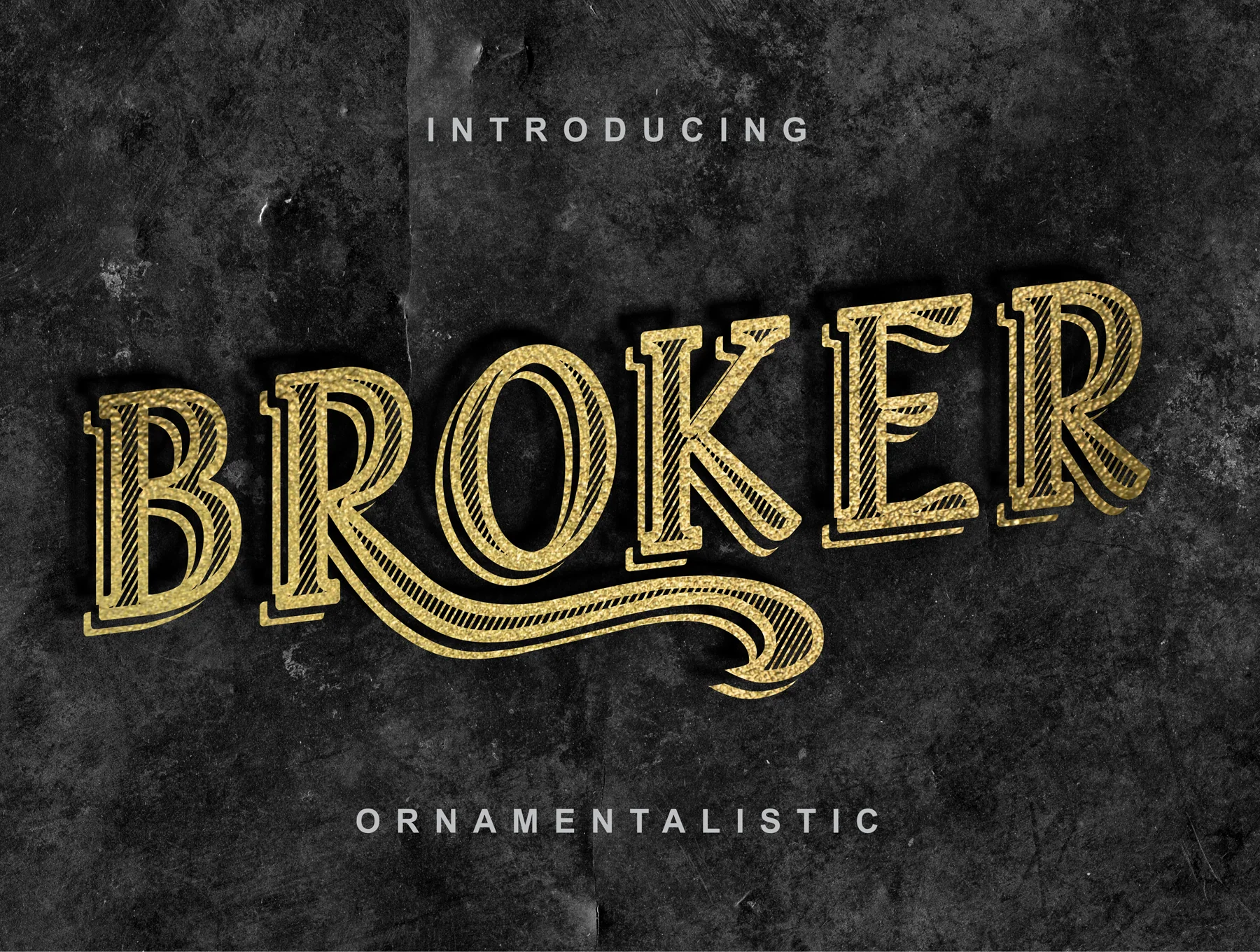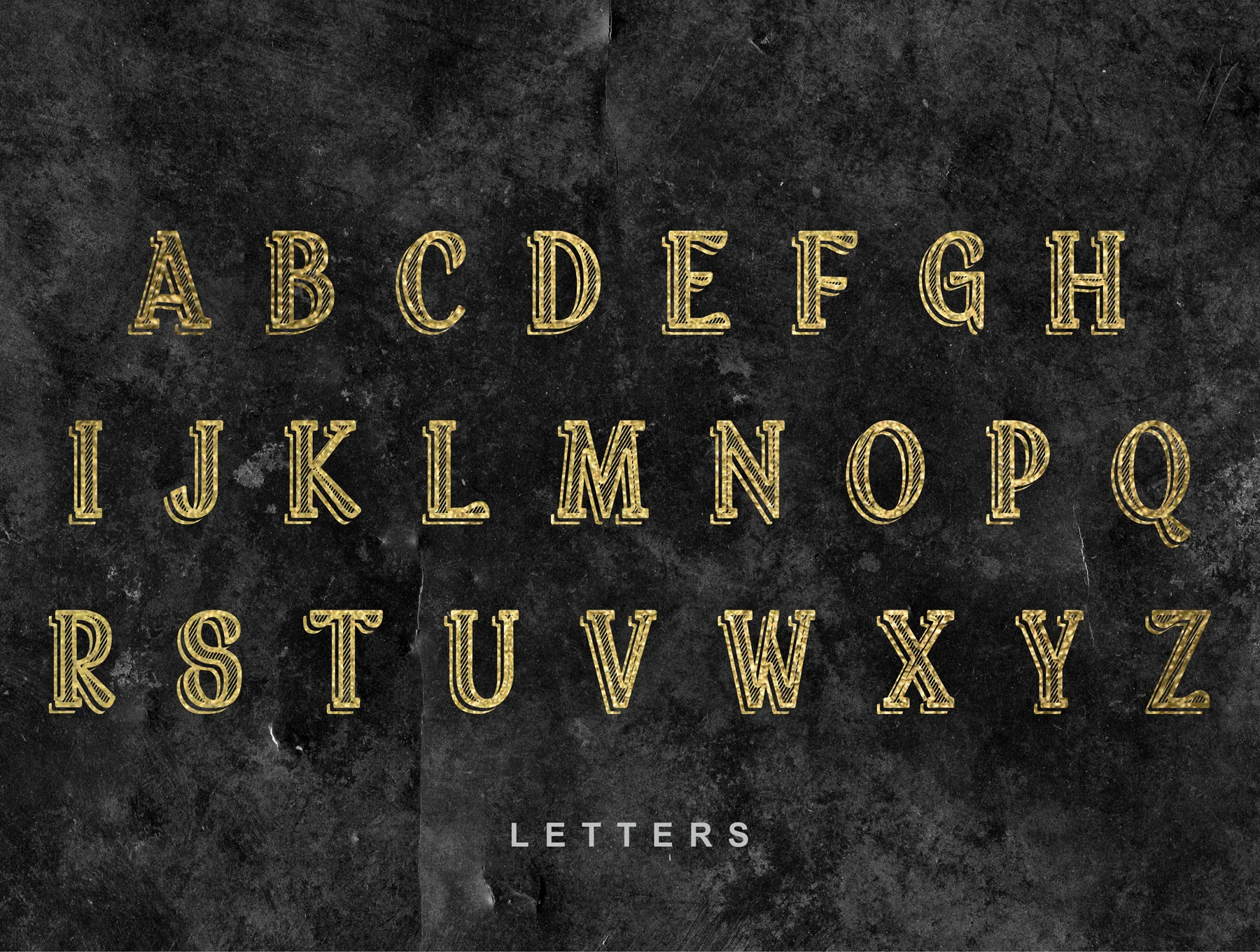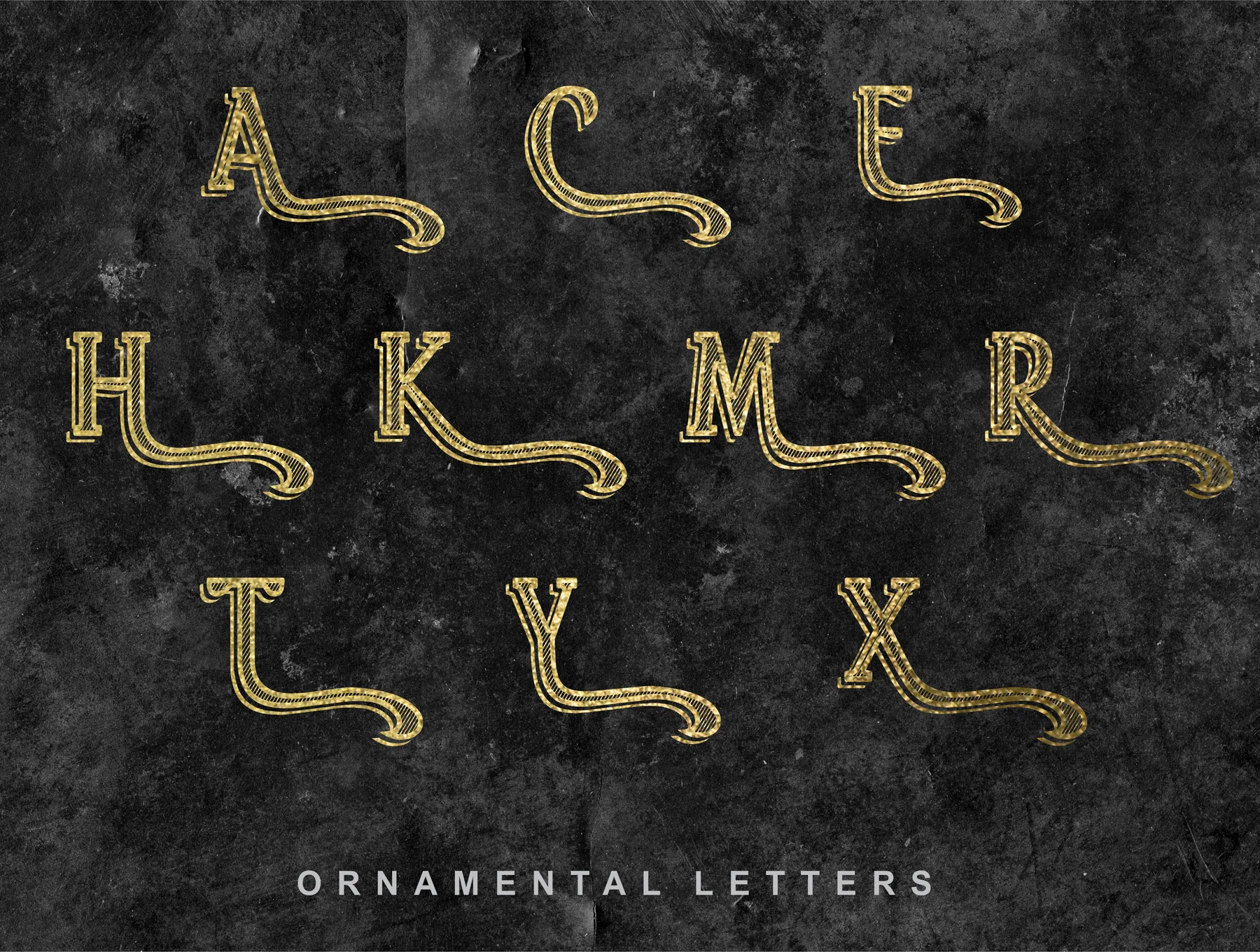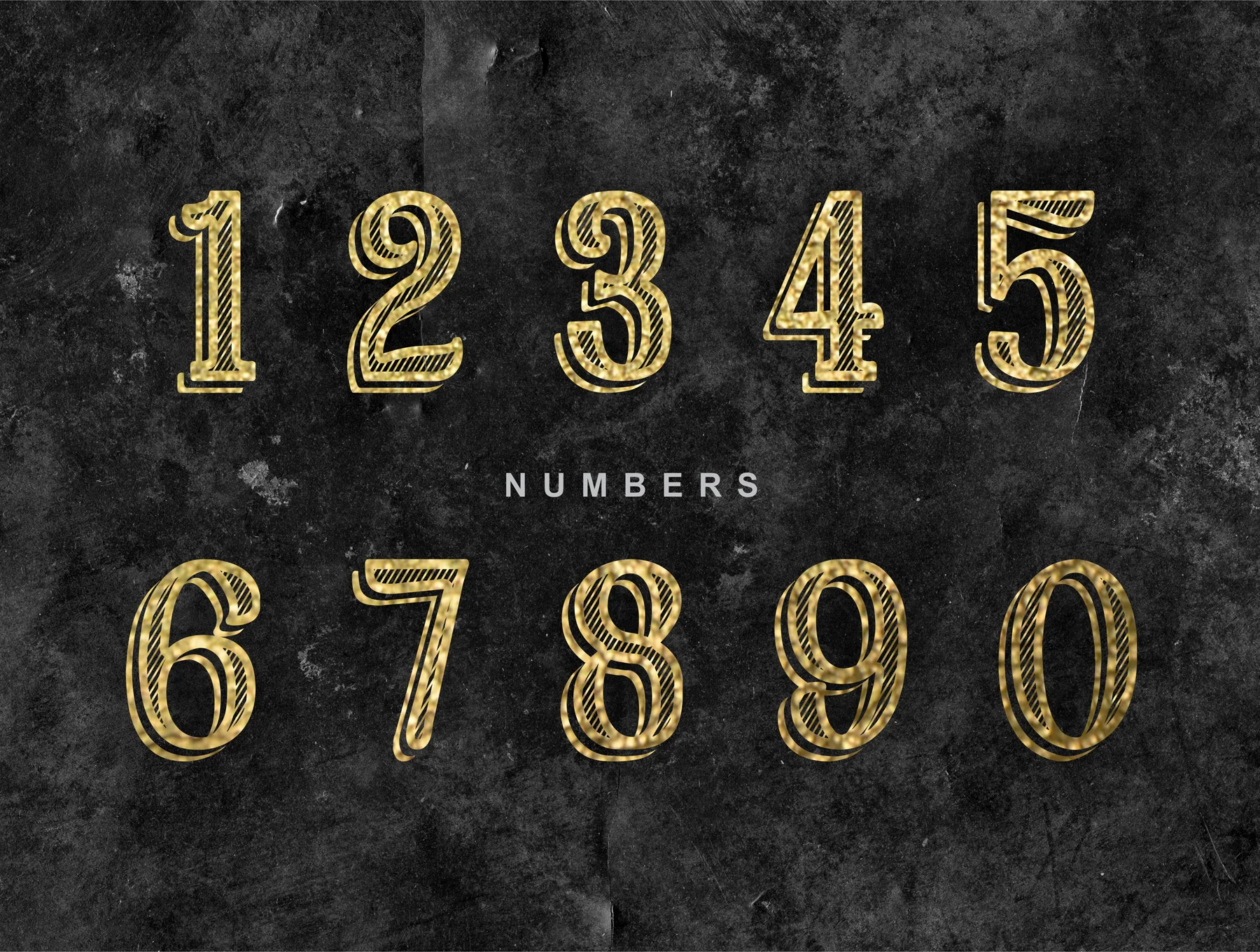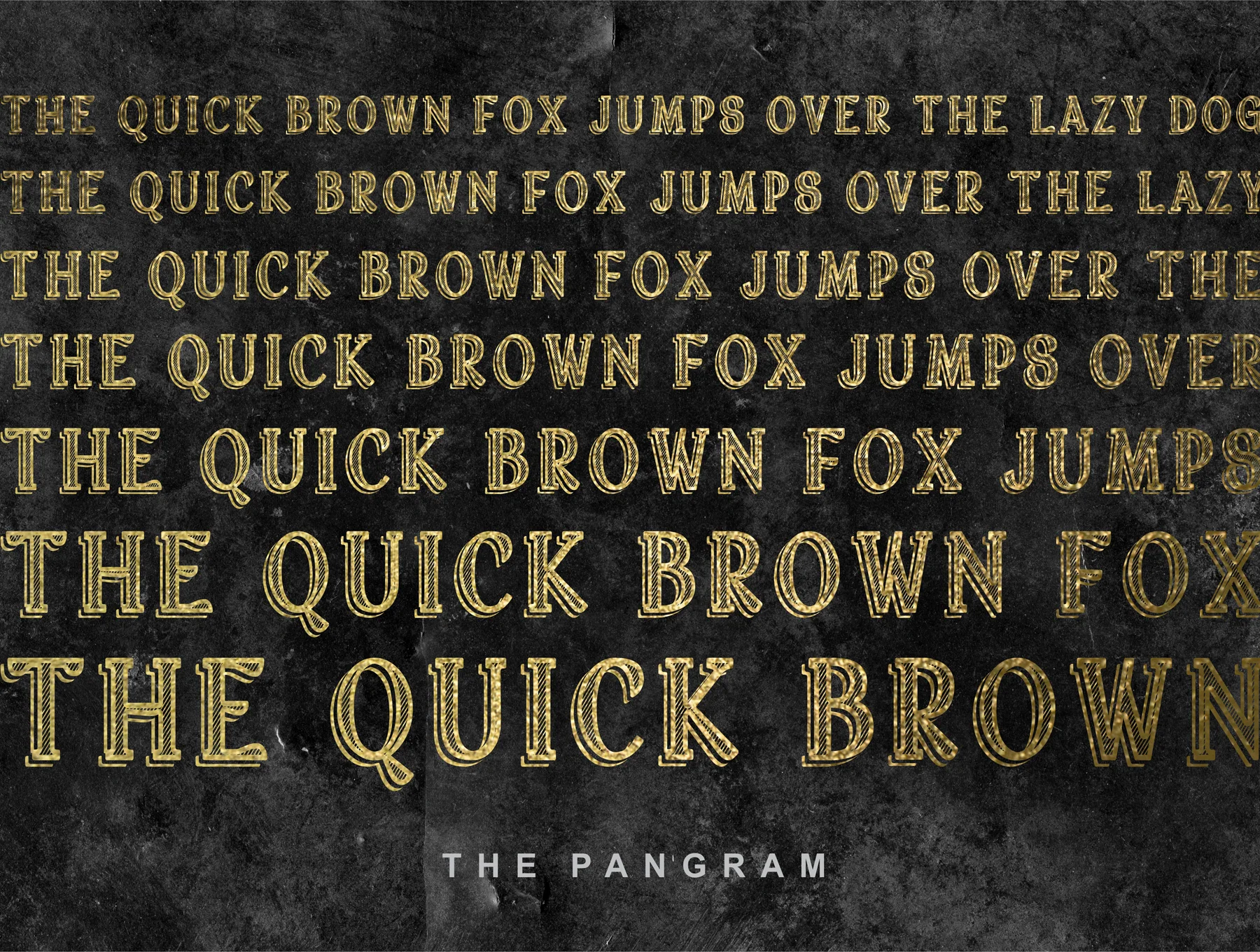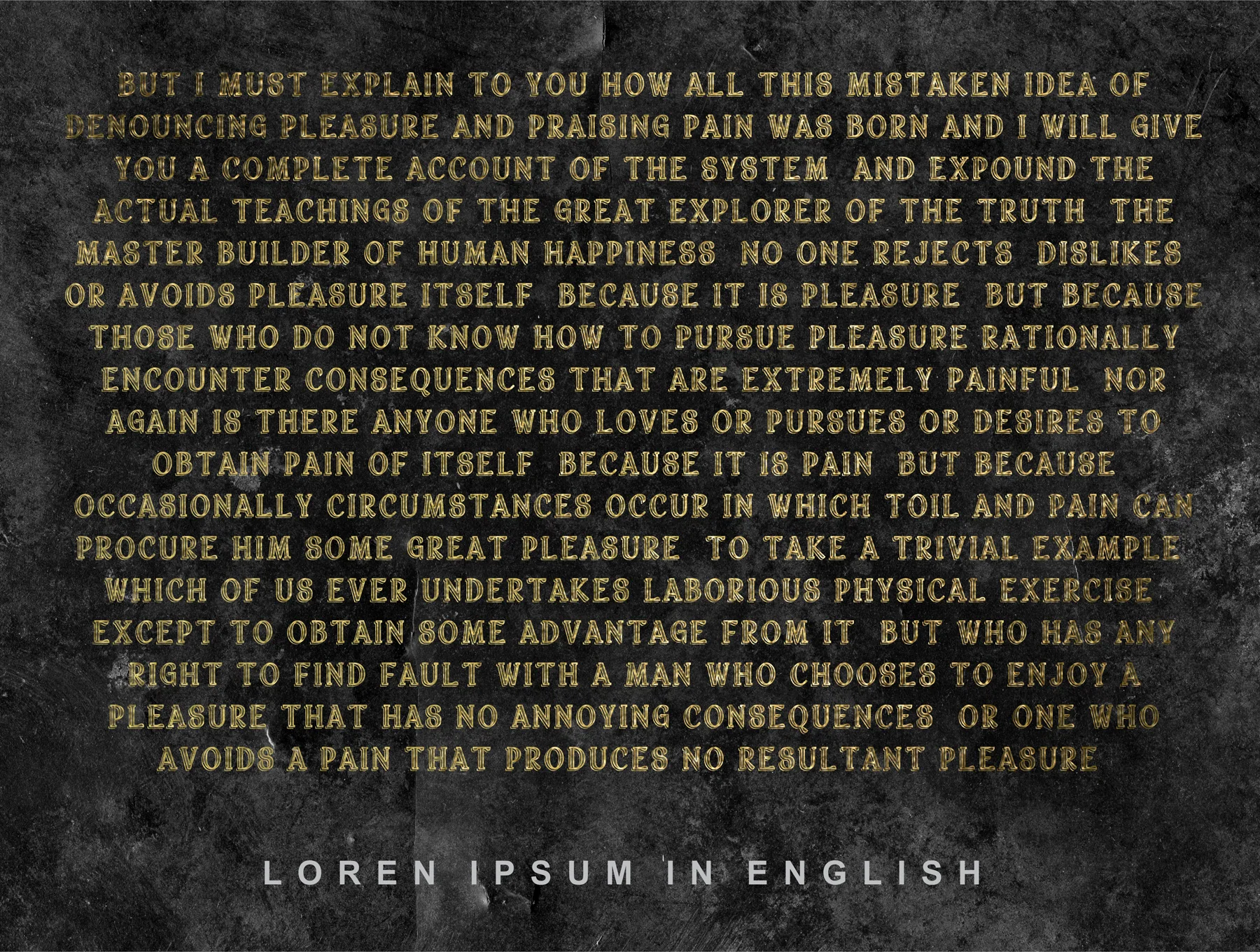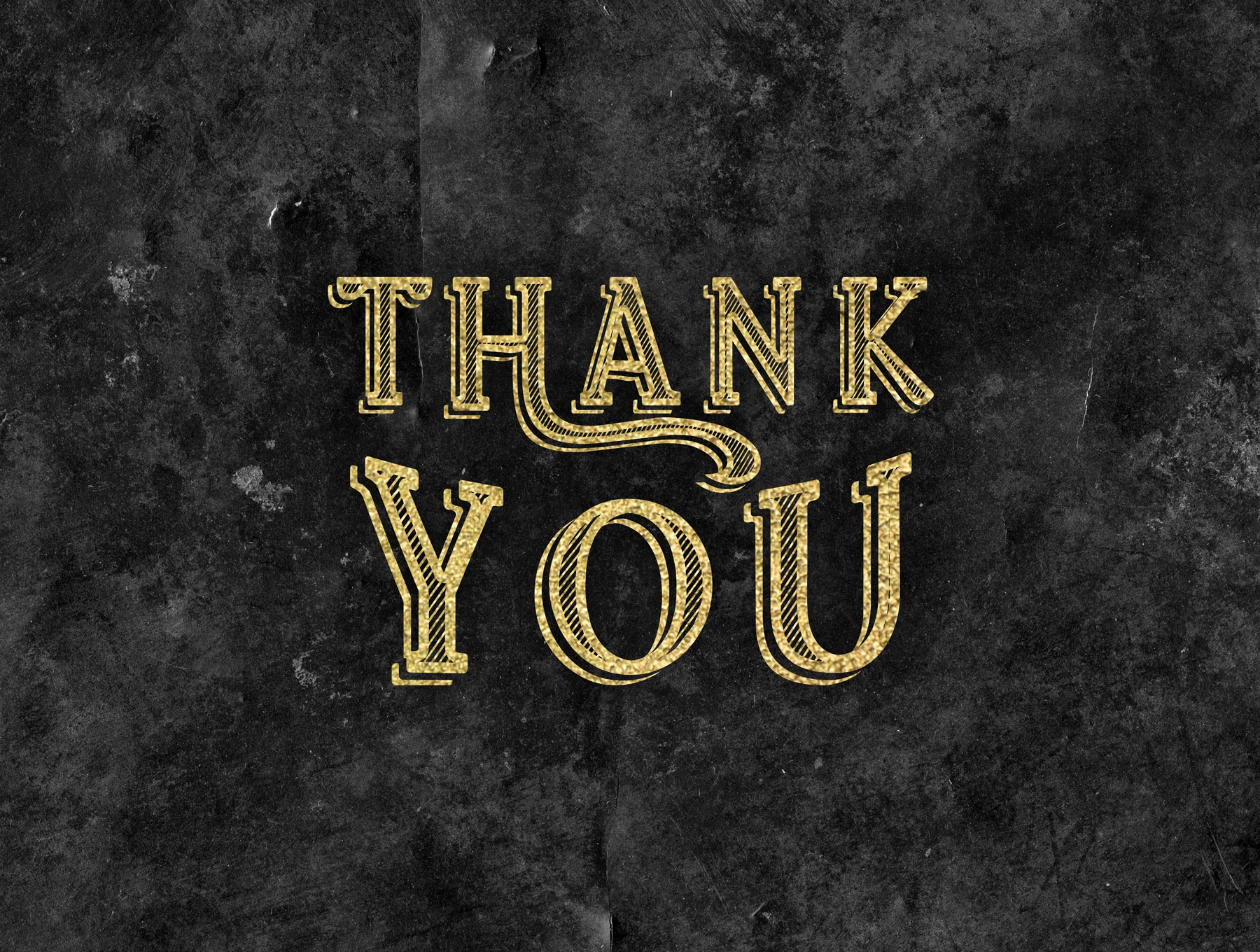
Broker
Broker - retro display typeface
Retro style
Showcase type
Connected glyphs
Uppercase letters
Broker is a bold, compact typeface with a solid base and crisp angular forms. Inspired by business and finance, it suits covers, ad headlines, website banners, logos, posters, postcards, invitations, envelopes, cards, chapter titles, and graphic layouts. Extra ornamental characters are included and can be selected from any software symbol menu.